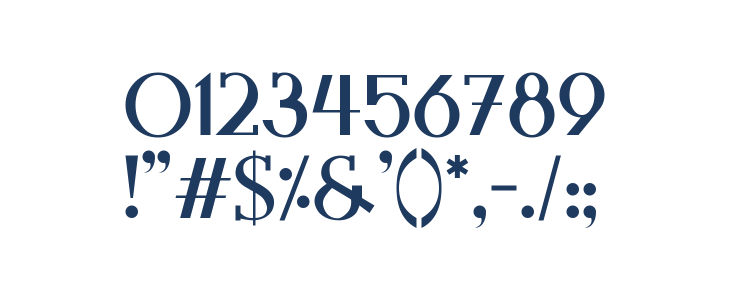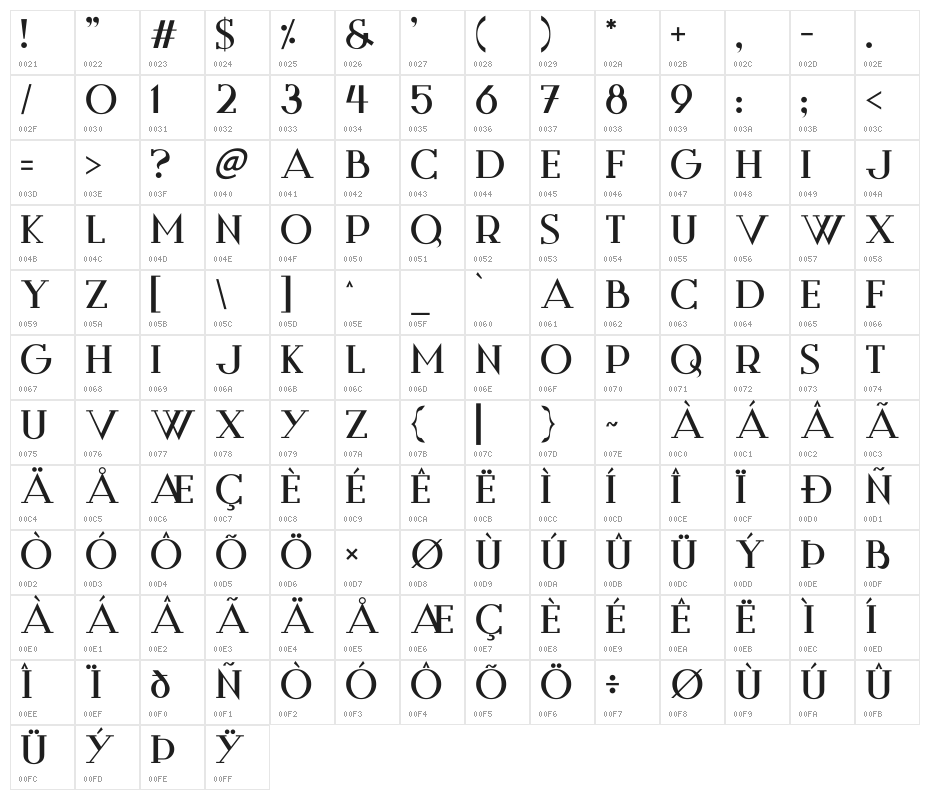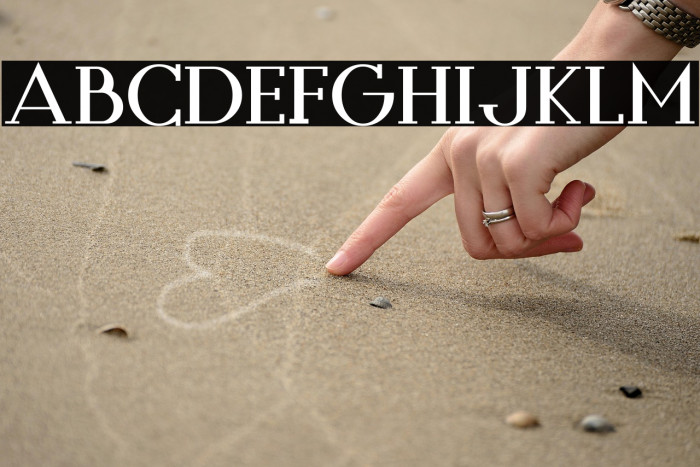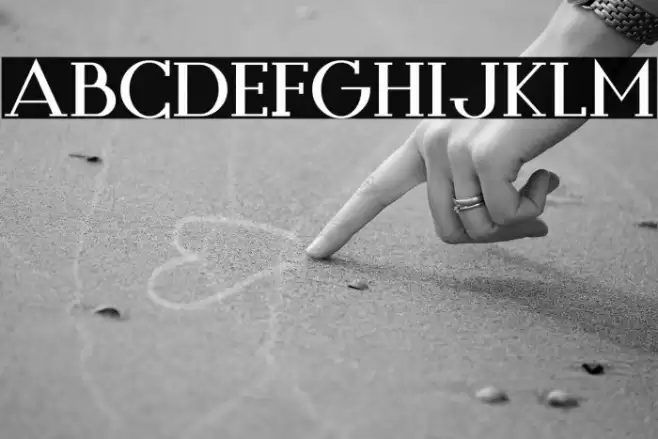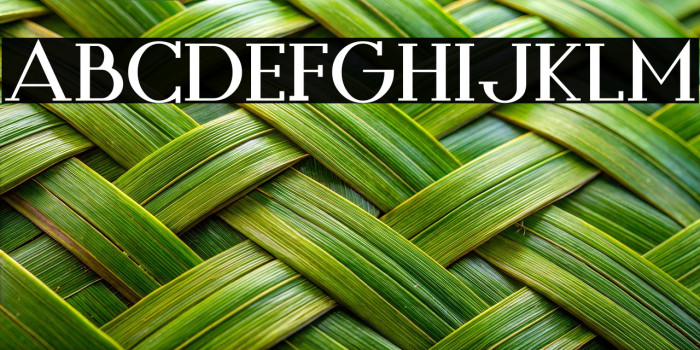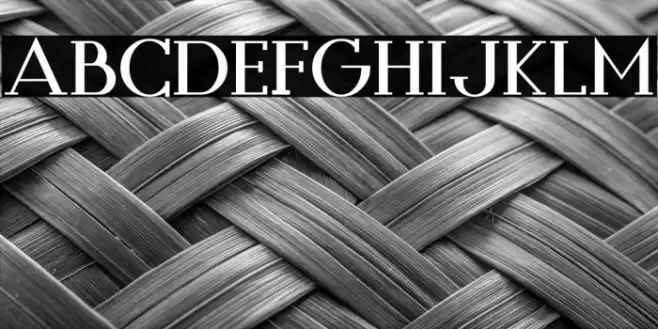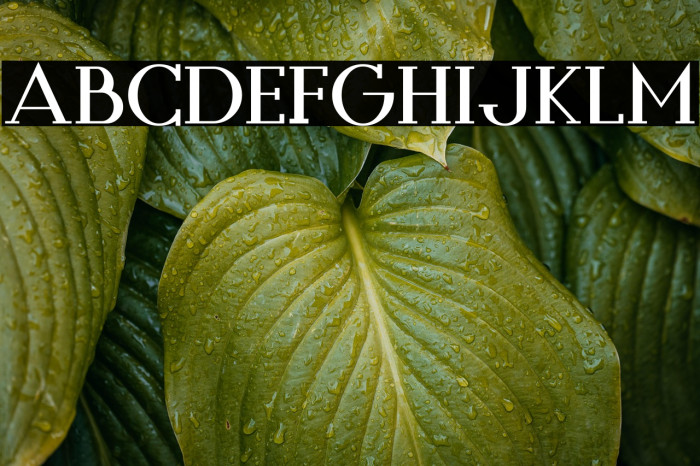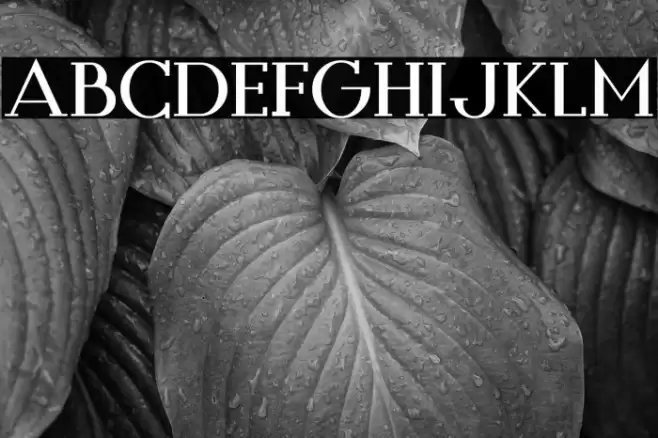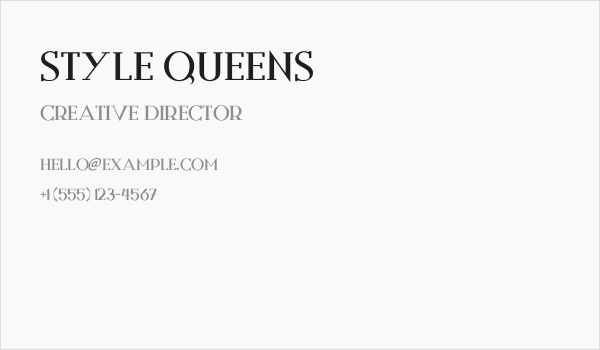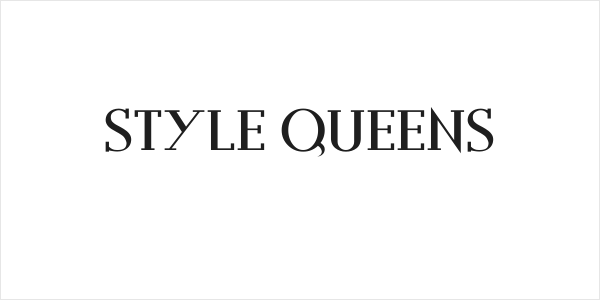
Style Queens Font
This font exudes a classic elegance with its high contrast between thick and thin strokes, typical of a serif typeface. The letters are well-defined, featuring sharp serifs and a refined structure that conveys sophistication and tradition. The uppercase letters are bold and commanding, while the lowercase letters maintain a consistent style, ensuring readability. The numerals are distinct and clear, with a slight flair that adds character. Special characters are crafted with precision, complementing the overall aesthetic. This font is ideal for projects that require a touch of class and formality.
| Proposed Projects | Ideal for luxury branding, editorial design, formal invitations, and high-end product packaging. |